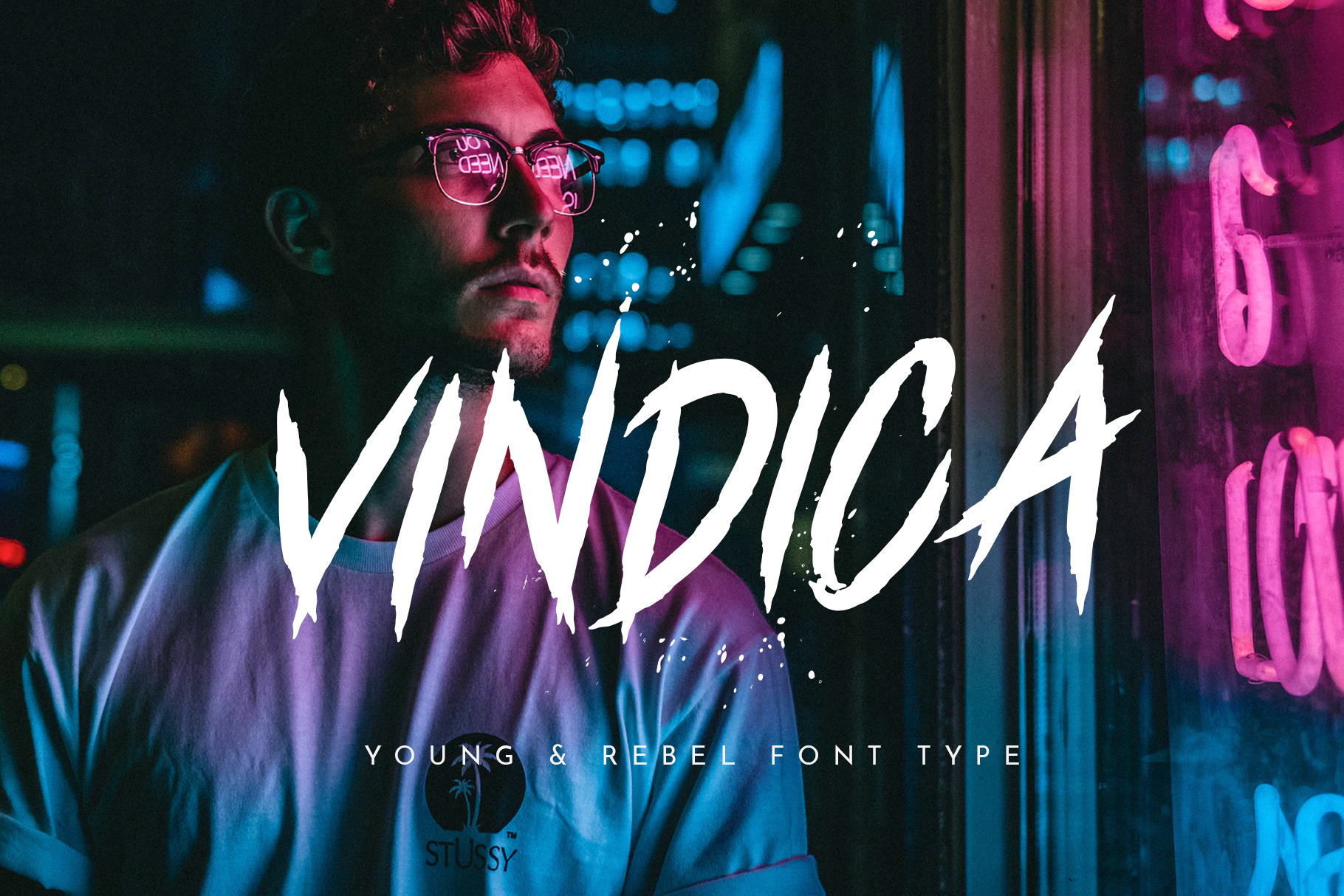
Vindica - Rebel Font
Create a Extraordinary Typography / lettering results by using Vindica - Rebel Font. Best match for logos, header, Titles, Prints & other Creative process possibilities.
- Ton of glyphs included
- Good pair with other font
- Clean Results